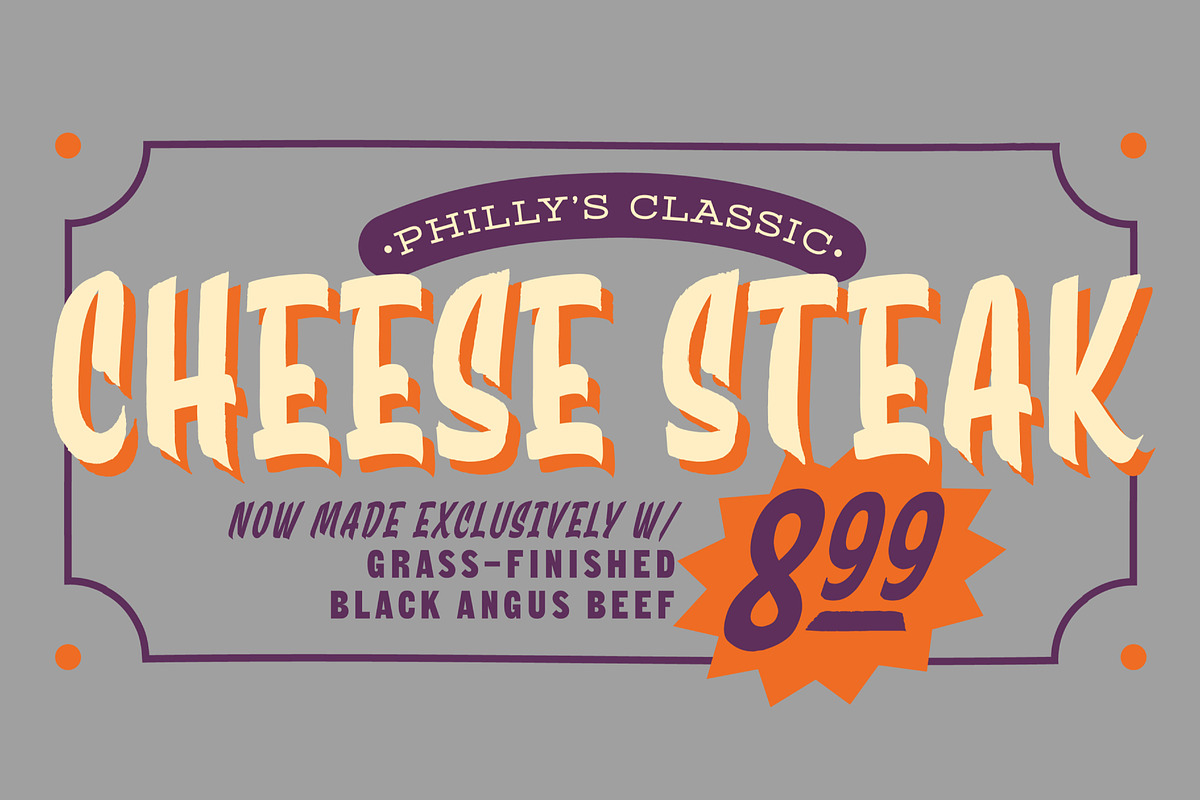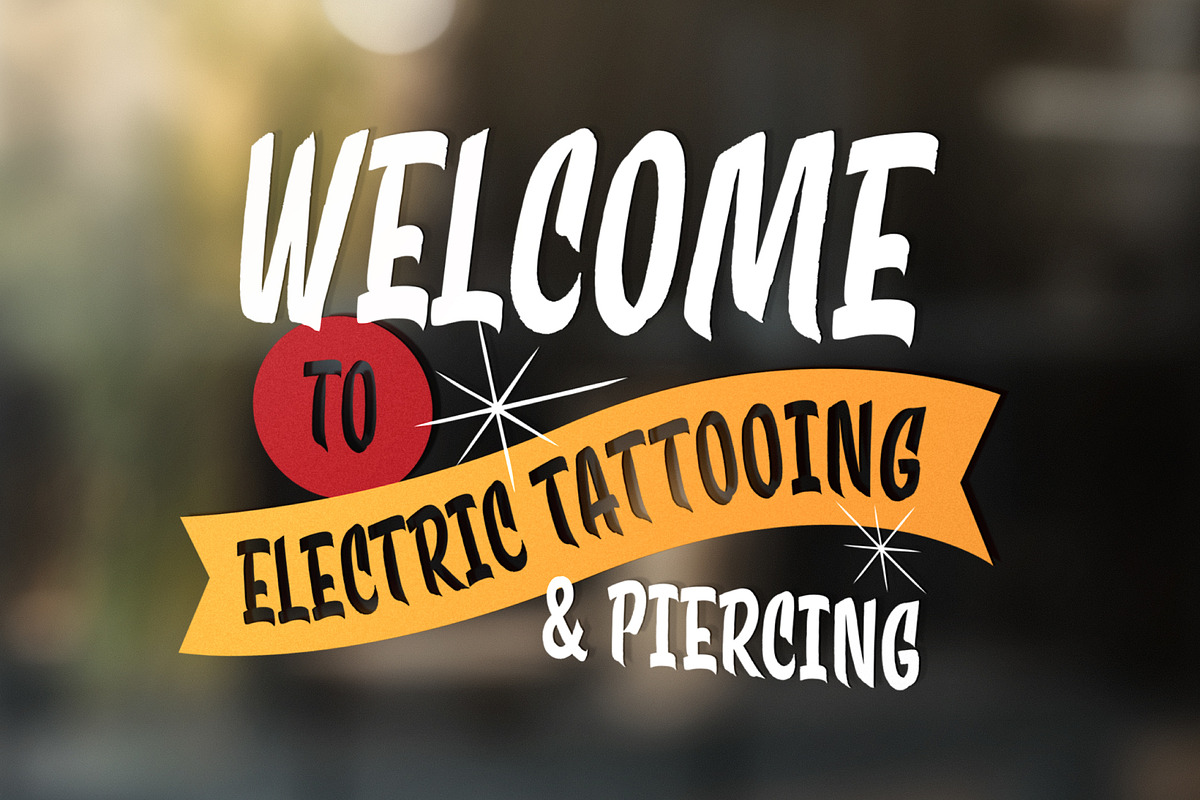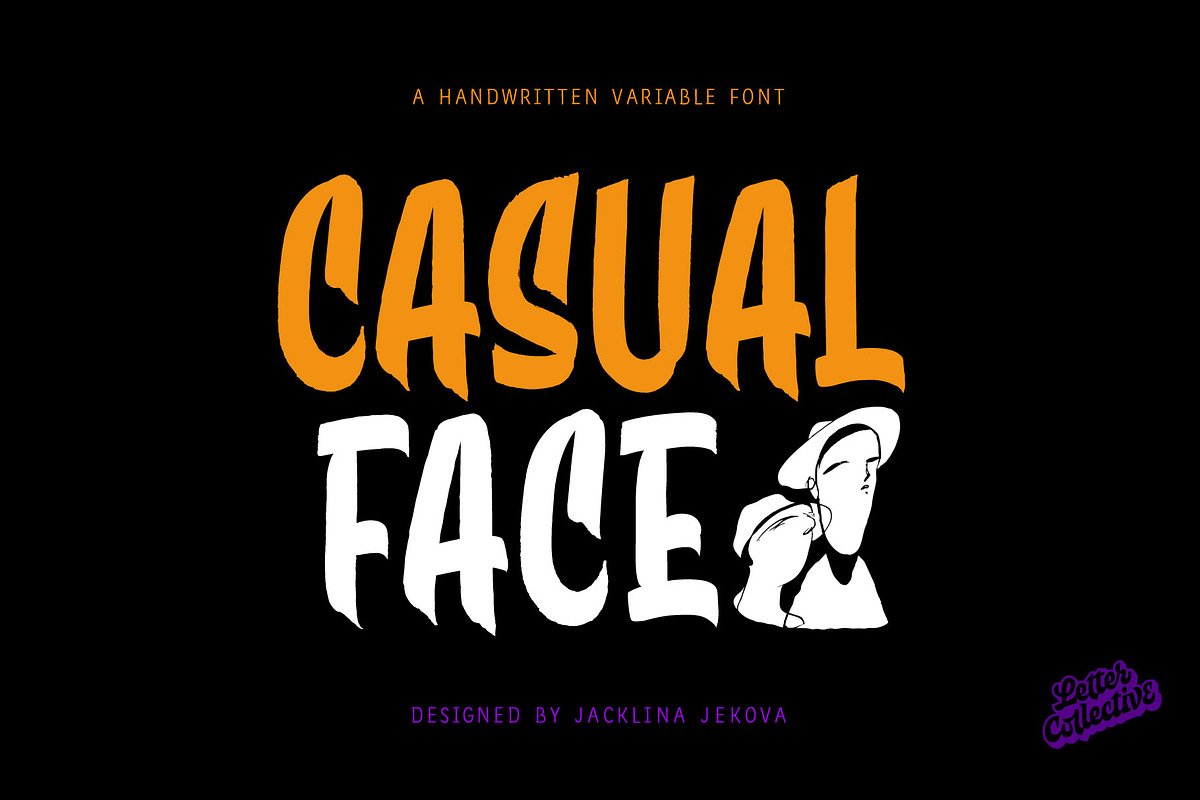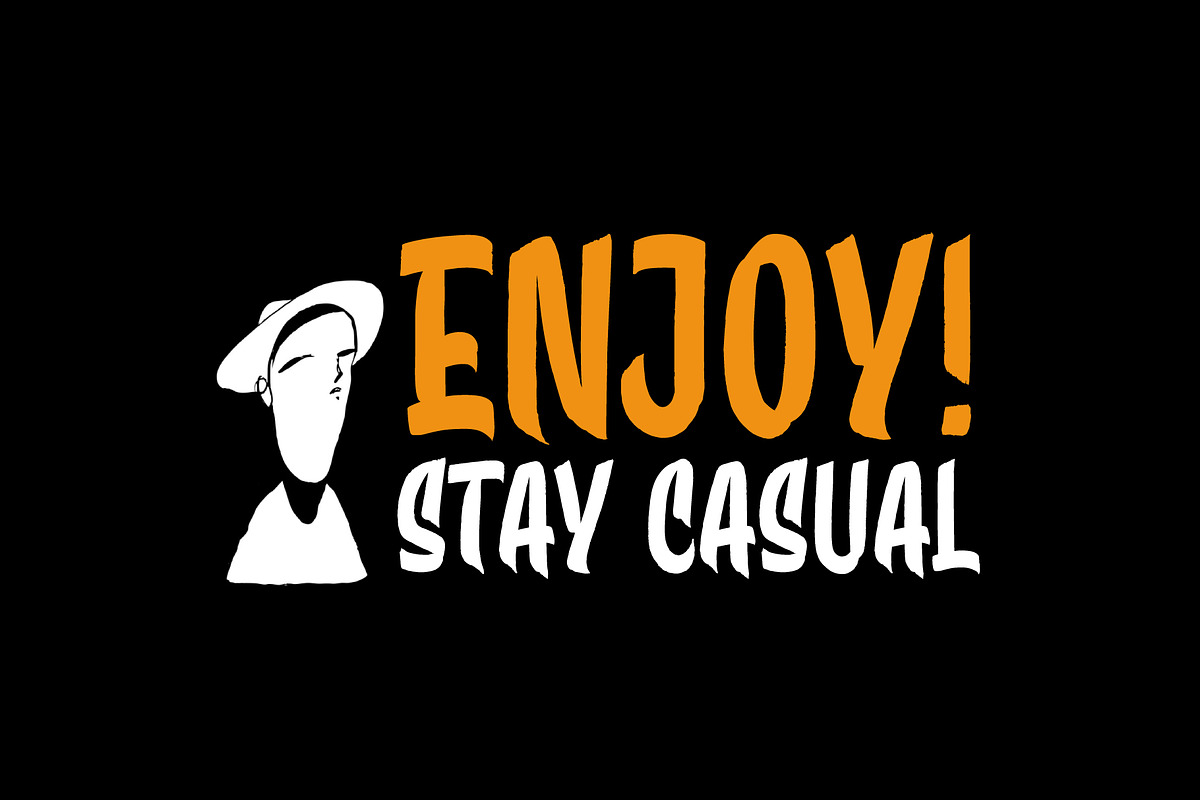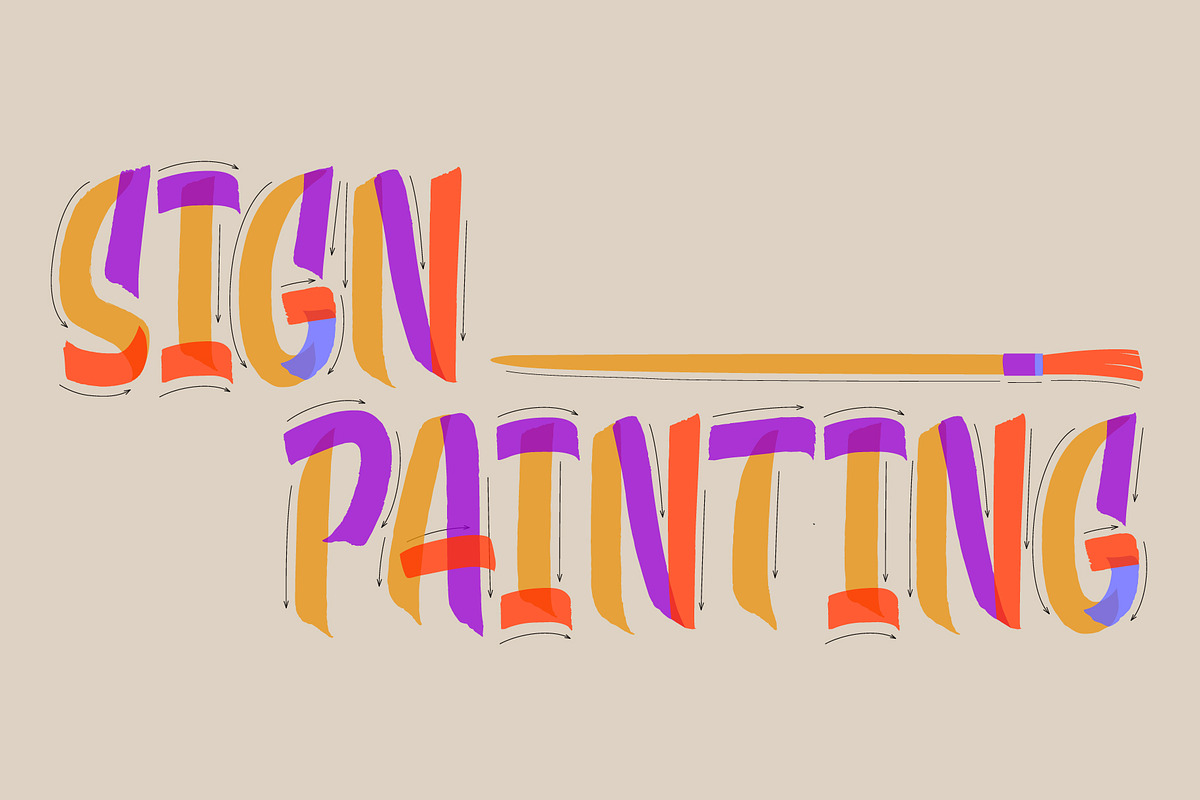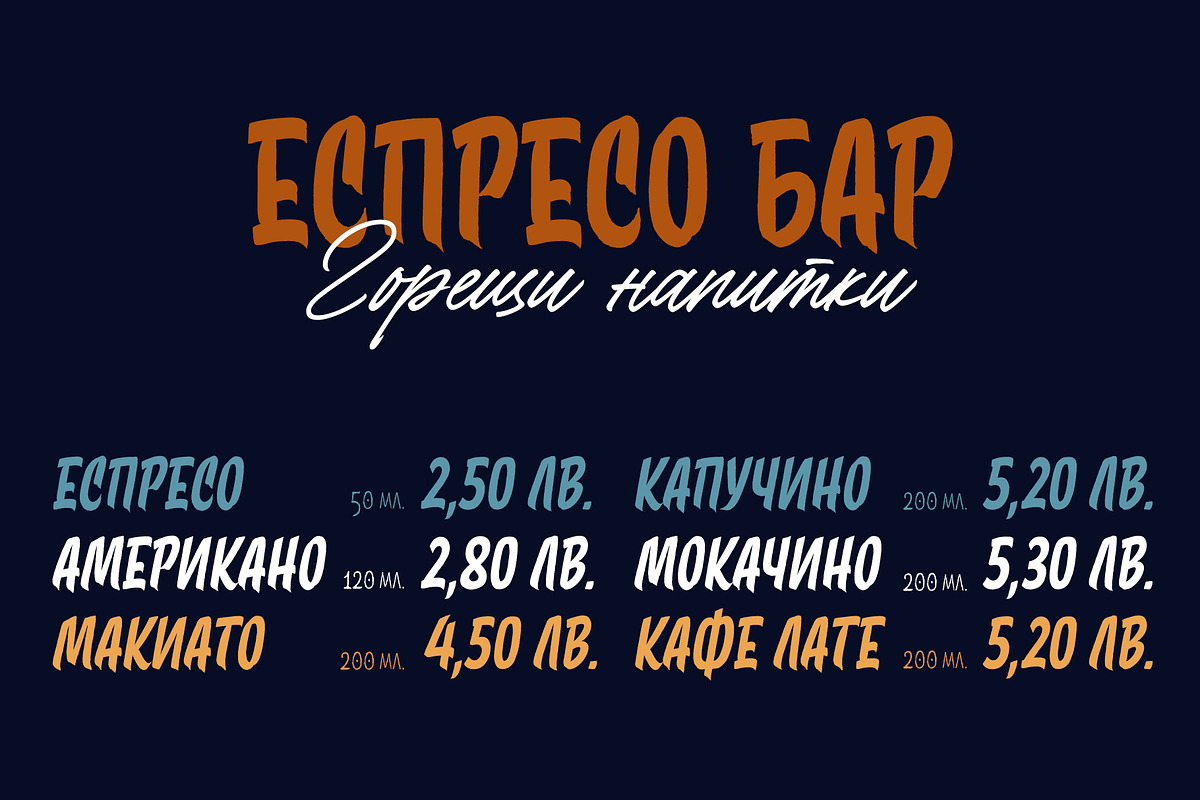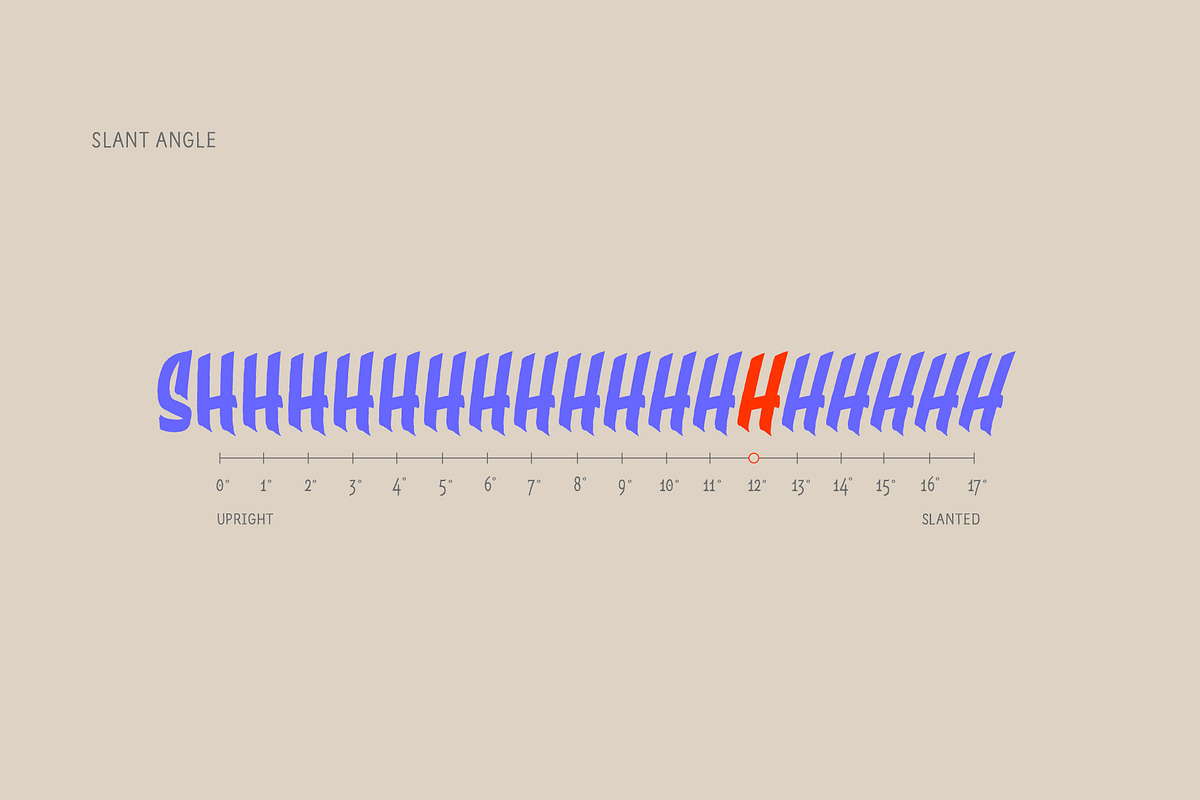
Casual Face
Casual Face is a display variable font with a natural handwritten feeling. The font supports Latin and Cyrillic uppercase characters, numerals, and the main set of punctuation and symbols. The character of the font is based on the classic sign-painter casual script. The font’s option variability is upright and slanted letters up to 17 degrees. This enables the designer to define the gradient himself and be free to create designs suitable for advertising, packaging, and events. The font is perfect for headlines and personal products with casual characters and the mood conveyed is warm, and relaxed.
- Designer: Jacklina Jekova
- Publisher: Letter Collective